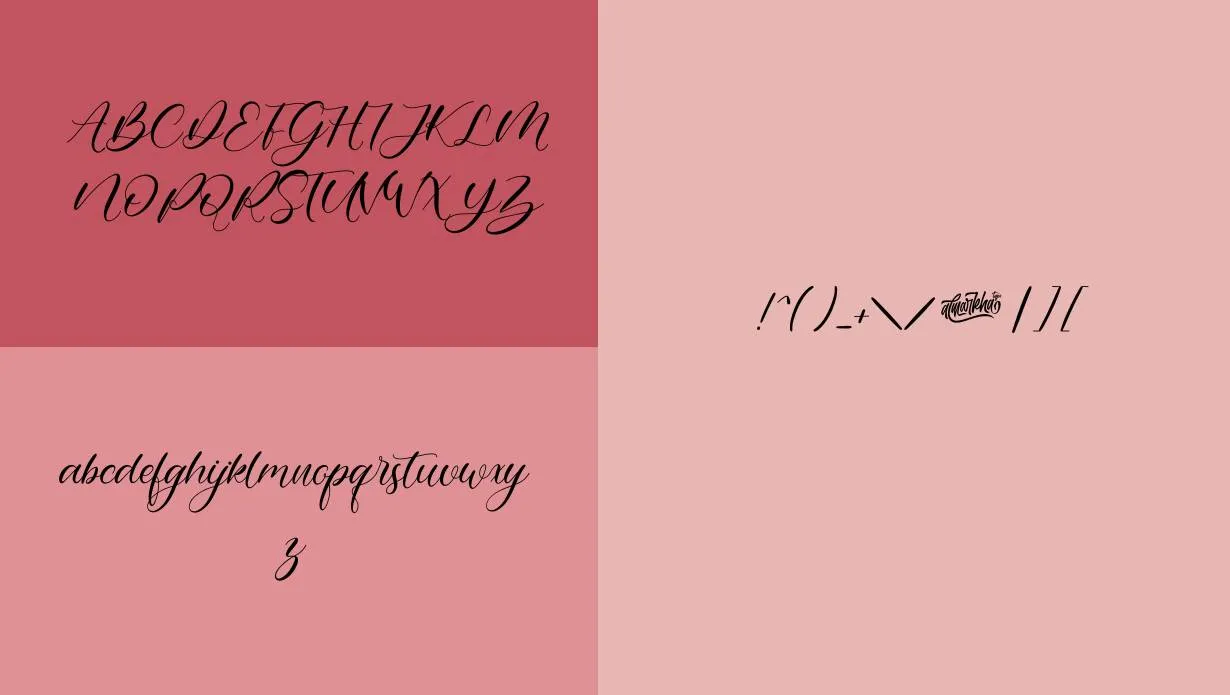
The Girly Font celebrates femininity by adding a playful and charming aesthetic to designs. Perfect for fashion, beauty, or anything with a girlish vibe, its whimsical characters bring a touch of fun.
| Name | Girly Font |
| Designer | Scratchones |
| Style | Calligrapahy |